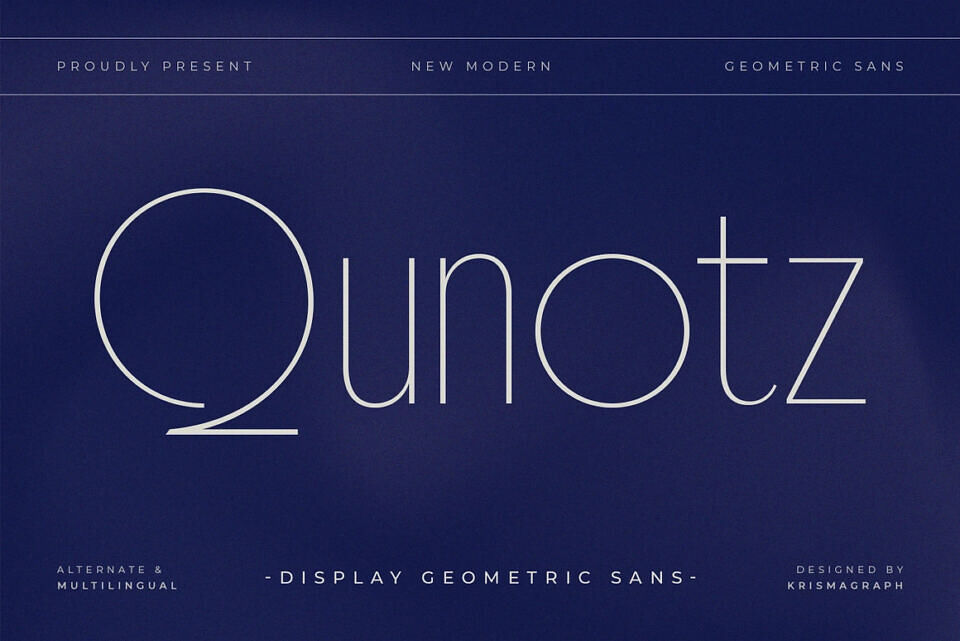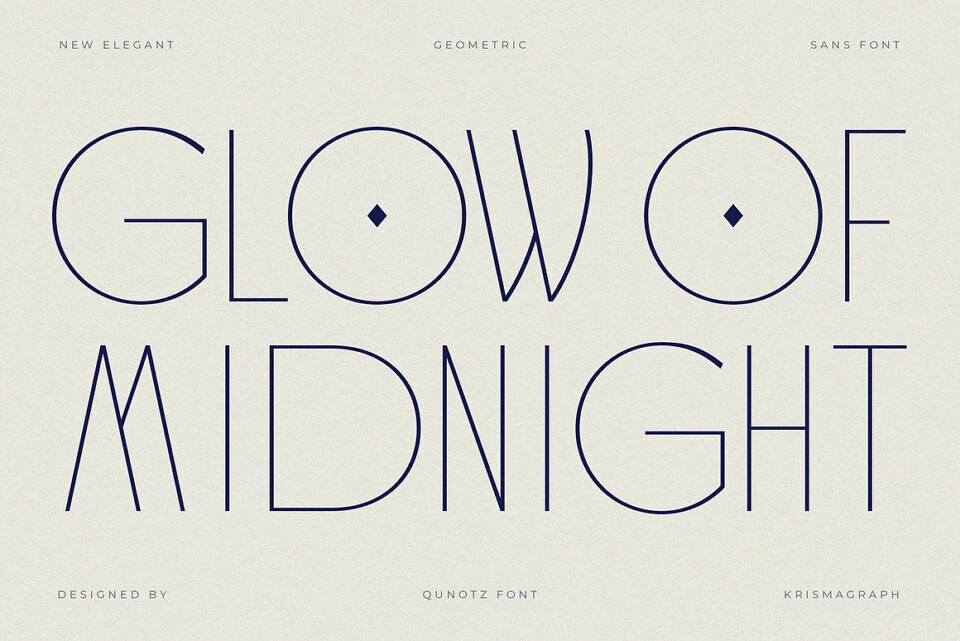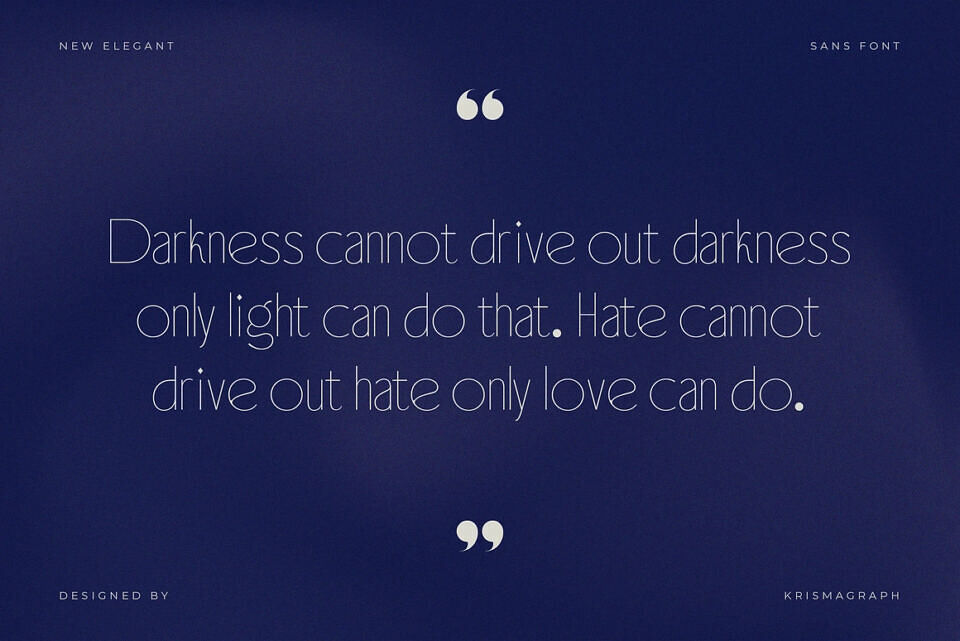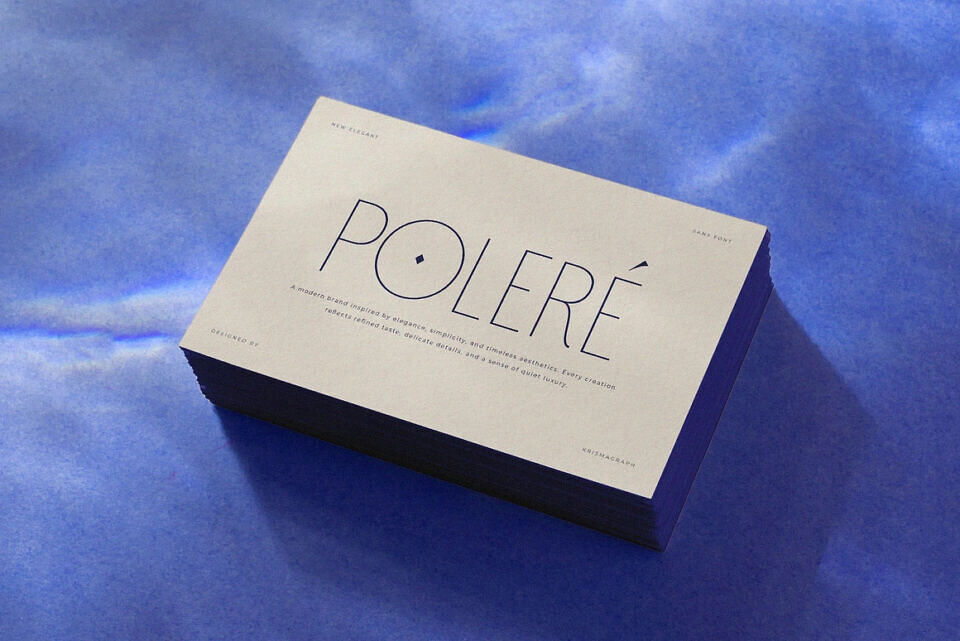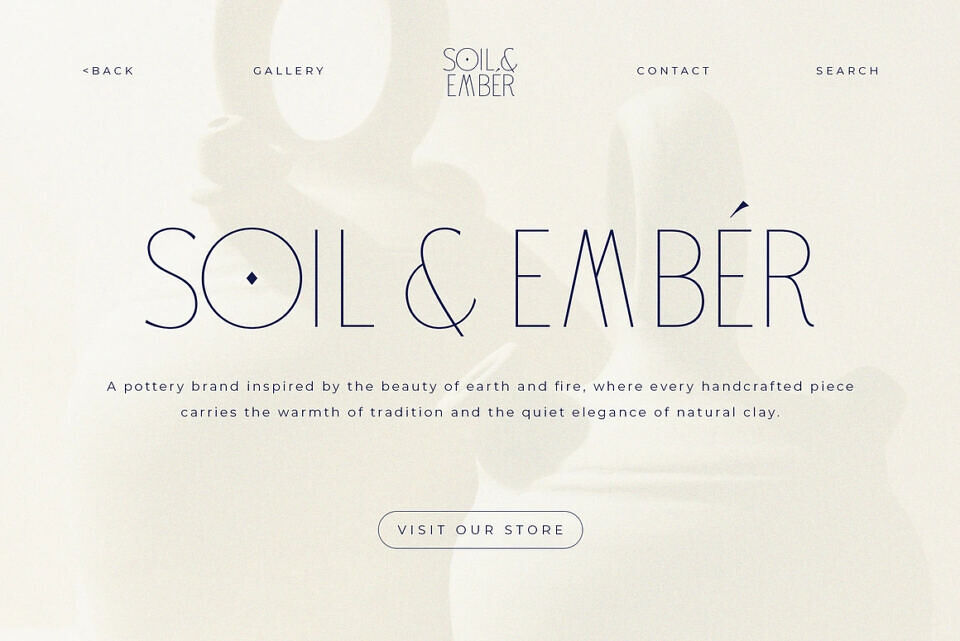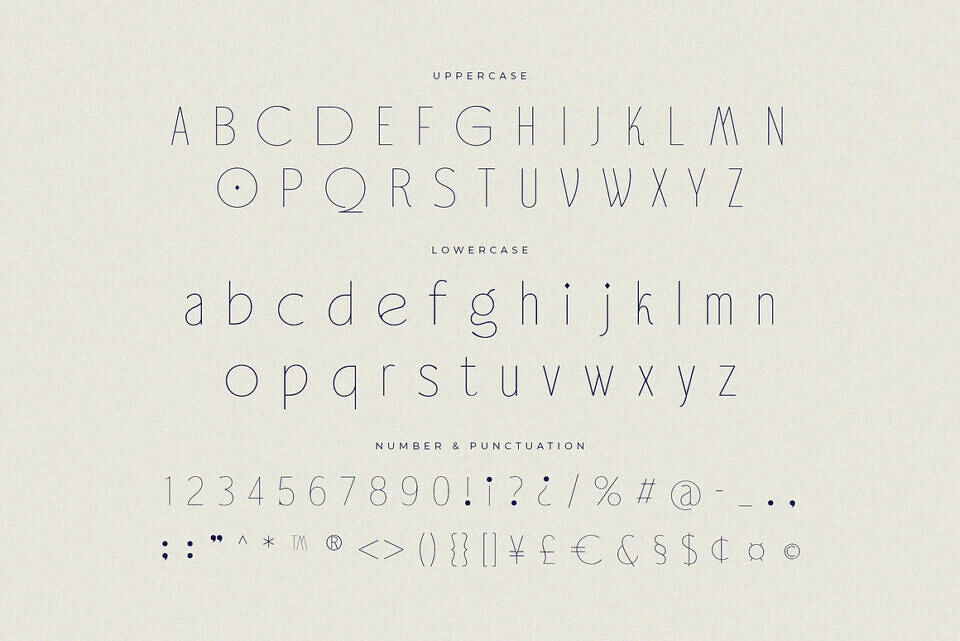
Qunotz is a precision-crafted ultra-thin geometric display sans that turns negative space into a design statement. Built on pure circular geometry, its hairline strokes and expansive open counters create an unmistakable visual signature — ethereal, architectural, and distinctly contemporary.
This is a typeface for brands that speak in whispers but still command a room. Qunotz is ideal for high-end fashion labels, luxury real estate, architectural studios, fine jewelry, cosmetic packaging, premium spa identities, and any creative project where restraint is the ultimate luxury.
Designed by: Krisma Graph (Ratna Krismawati)